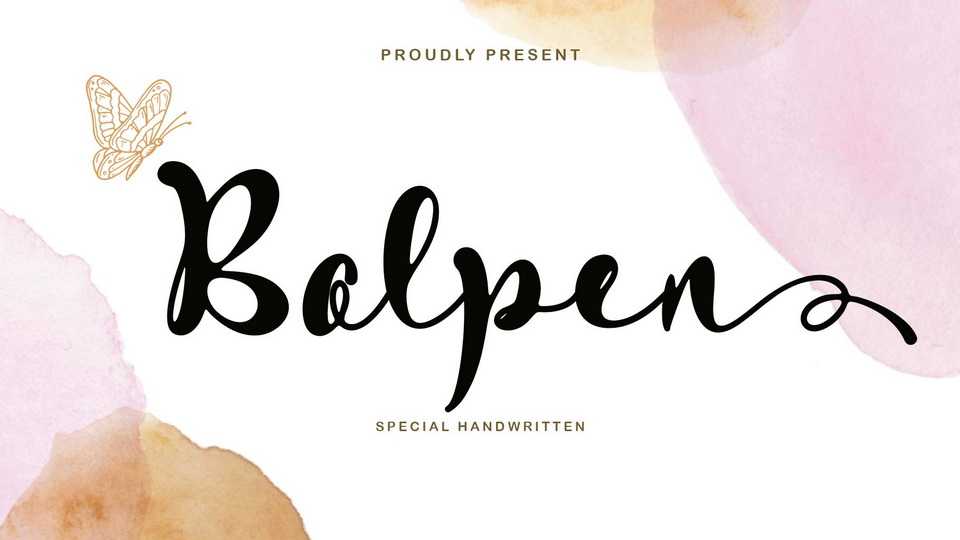
Download Bolpen font, a unique and simple handwritten typeface. Bolpen is very suitable for weddings, posters, stickers, photography, congratulations, invitation cards and more.